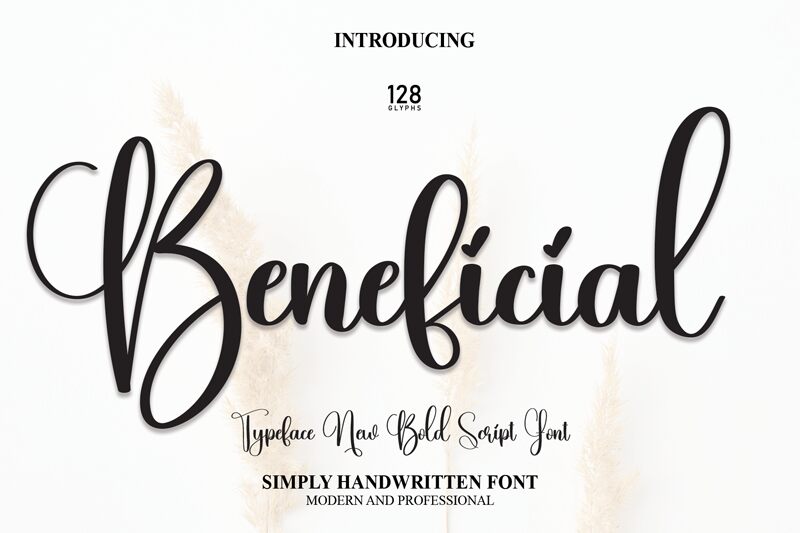
Beneficial
Beneficial, a calligraphy masterpiece from the creative mind of Scratchones, is a font that gracefully marries elegance with functionality. Its semi-light weight gives it an airy presence on the page, while the semi-condensed width ensures readability without compromising sophistication. The fluidity of its strokes suggests a timeless appeal, perfect for projects seeking to convey classic beauty or artisanal flair.
With each character thoughtfully designed to flow into the next, Beneficial exudes charm and personality that can elevate wedding invitations, branding materials, and literary works with its bespoke touch. The font's versatility also makes it an excellent choice for digital content creators who aim to infuse their work with a sense of individuality and style.
Embrace the artistic potential of Beneficial for your next design endeavor and let its unique character be the voice of your creative vision.